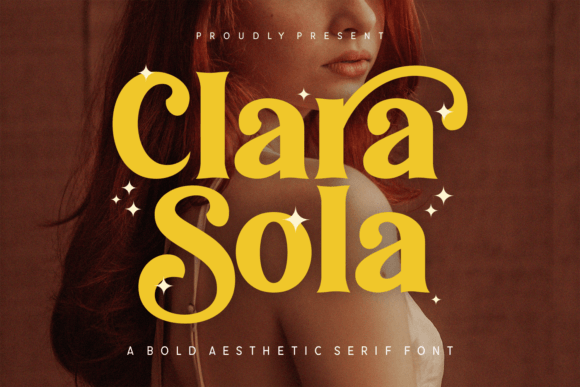
Looking for the best fonts for display text? Look no further than Clara Sola Font, a stunning vintage display font with a modern twist. Created by Creative Fabrica Fonts, Clara Sola is the perfect choice for anyone looking to add a touch of elegance and luxury to their next project.
With its unique design and eye-catching style, Clara Sola is perfect for use in a wide range of applications. Whether you're creating quotes, tattoo designs, signs, t-shirts, stickers, wall art, or even personal branding, Clara Sola is sure to make your project stand out from the crowd.
One of the key features of Clara Sola is its PUA encoding, which makes it incredibly easy to access all of the glyphs included in the font. This means that you can create truly unique designs with ease, without having to worry about any technical issues getting in the way.
So why should you choose Clara Sola for your next project? Well, for starters, it's an incredibly versatile font that can be used in a wide range of applications. Whether you're looking to create a bold and impactful design or a more subtle and understated look, Clara Sola has you covered.
So if you're looking for a font that can help take your designs to the next level, look no further than Clara Sola Font. With its vintage style, modern twist, and endless possibilities, this is one font that you won't want to miss.